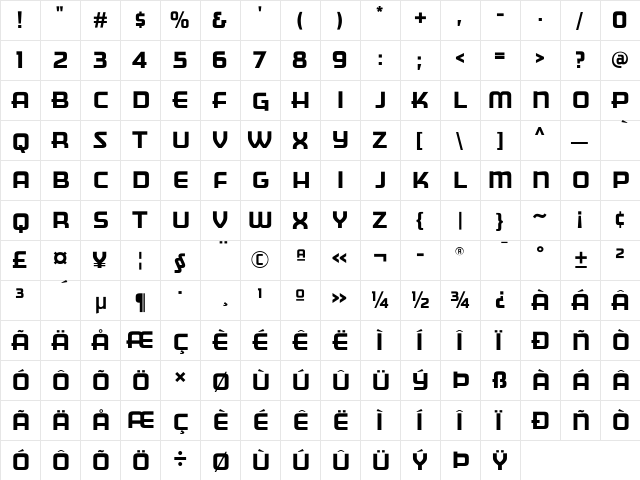
Motel-Gothic Regular
Design Context for Motel-Gothic Typeface
Motel-Gothic has the quiet confidence of well-executed sans-serif typography: versatile, unobtrusive, and dependable at any size.
Font Pairing: Works well alongside a characterful serif or display font that can carry the expressive load while Motel-Gothic handles the functional copy.
Pro Tip: Pair Motel-Gothic with a display or serif font for headlines — its neutral character makes it an excellent supporting player in complex typographic systems.